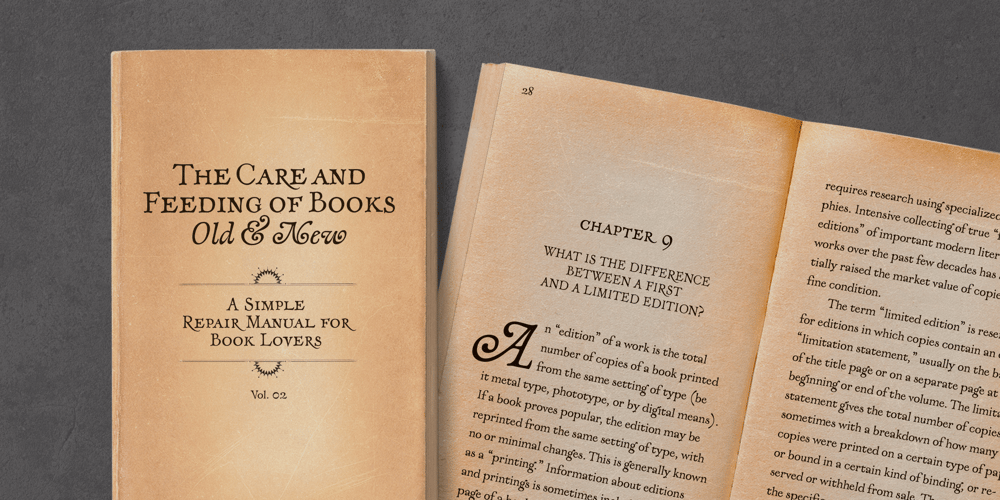
Lagarto Font Family was designed by Gabriel Martínez Meave and published by Sudtipos. Lagarto contains 3 styles and family package options. Some years ago, a good friend and typophile, Gonzalo García Barcha, approached me with the idea of designing a typeface for his editorial project Blacamán Ediciones. He had just came across an hitherto unknown manuscript by Luis Lagarto, a colonial illuminator and scribe, working in Mexico City and Puebla in the late 1500s. The manuscript calligraphy was incredible and stunningly original. It featured three different hands by the scribe, intermingled in the text: a kind of baroque «Roman» roundhand; a very ornate, lively «Italic»; and some sort of irregular, playful, even funny «small caps». All imbued with an eccentric, convoluted zest and vivacious rhythm. Lagarto is the final result of translating these extraordinary hands into a digital type family. Since the manuscript had no numerals, math signs and many other characters now in use, part of the fun of the job was to infer them from the stylistic peculiarities of Luis Lagarto’s calligraphy. Lagarto received an Award of Excellence at the Type Directors Club of New York annual competition.